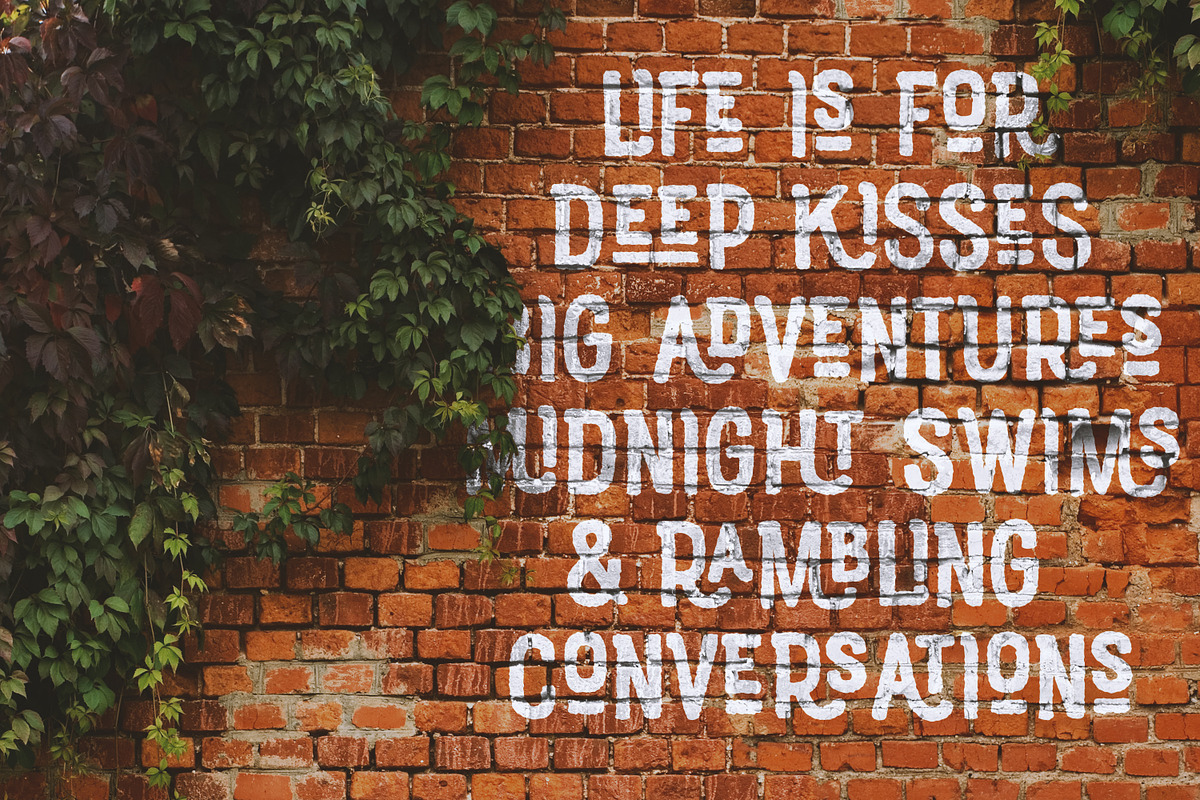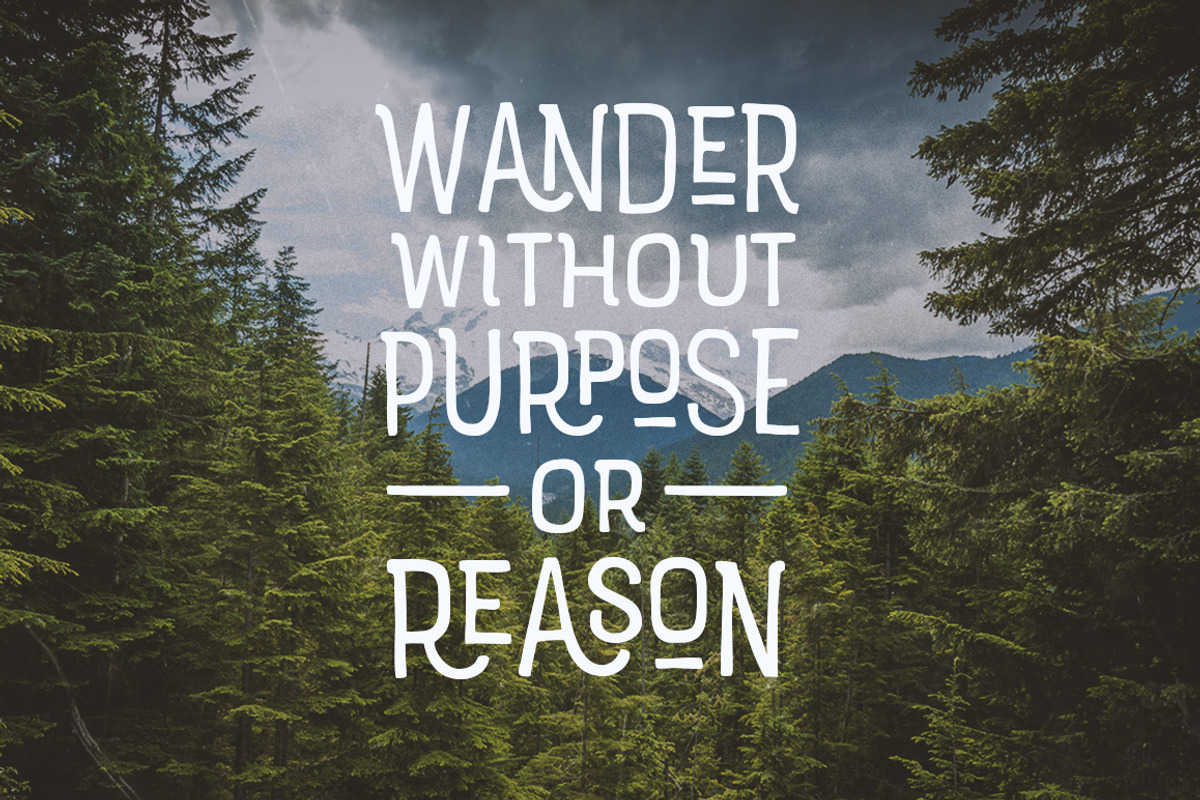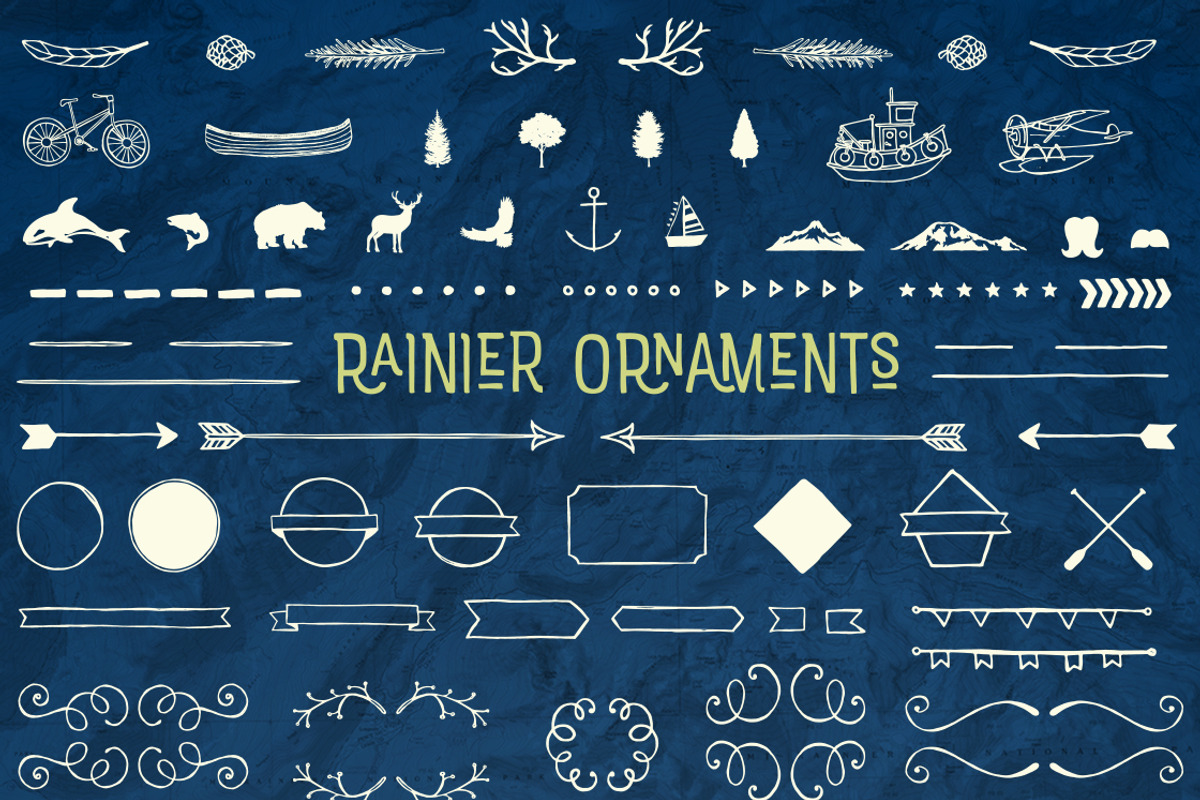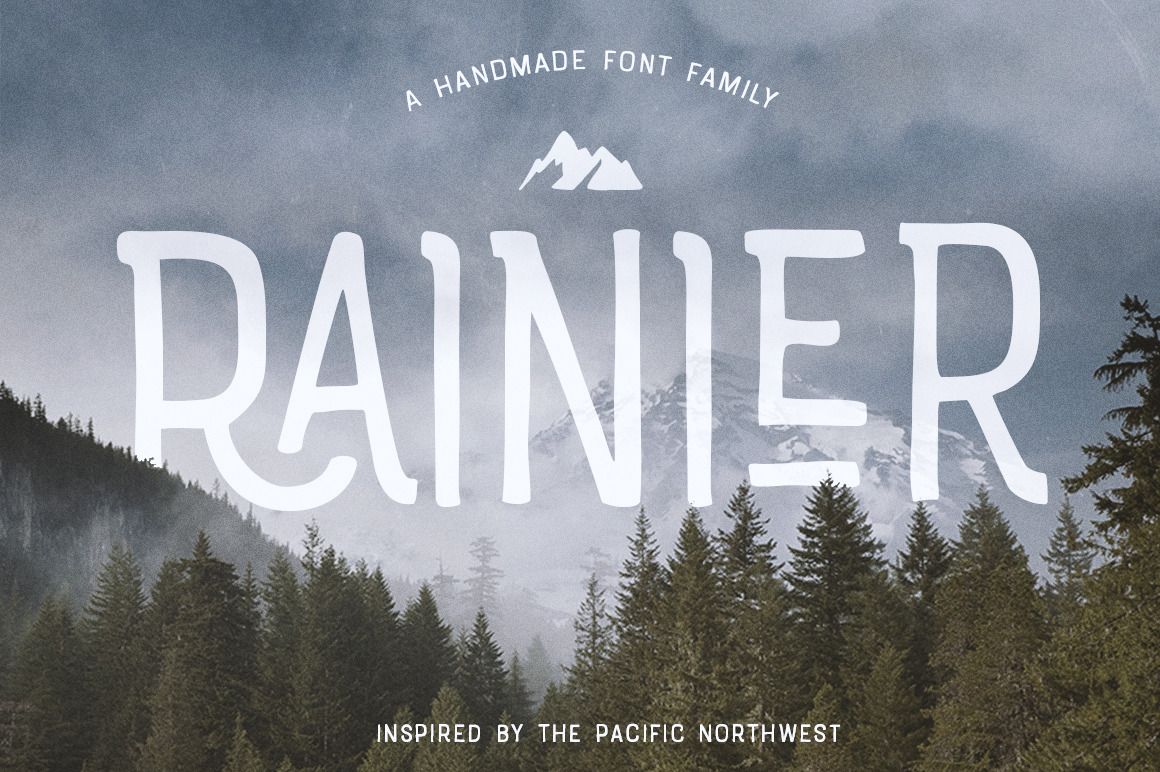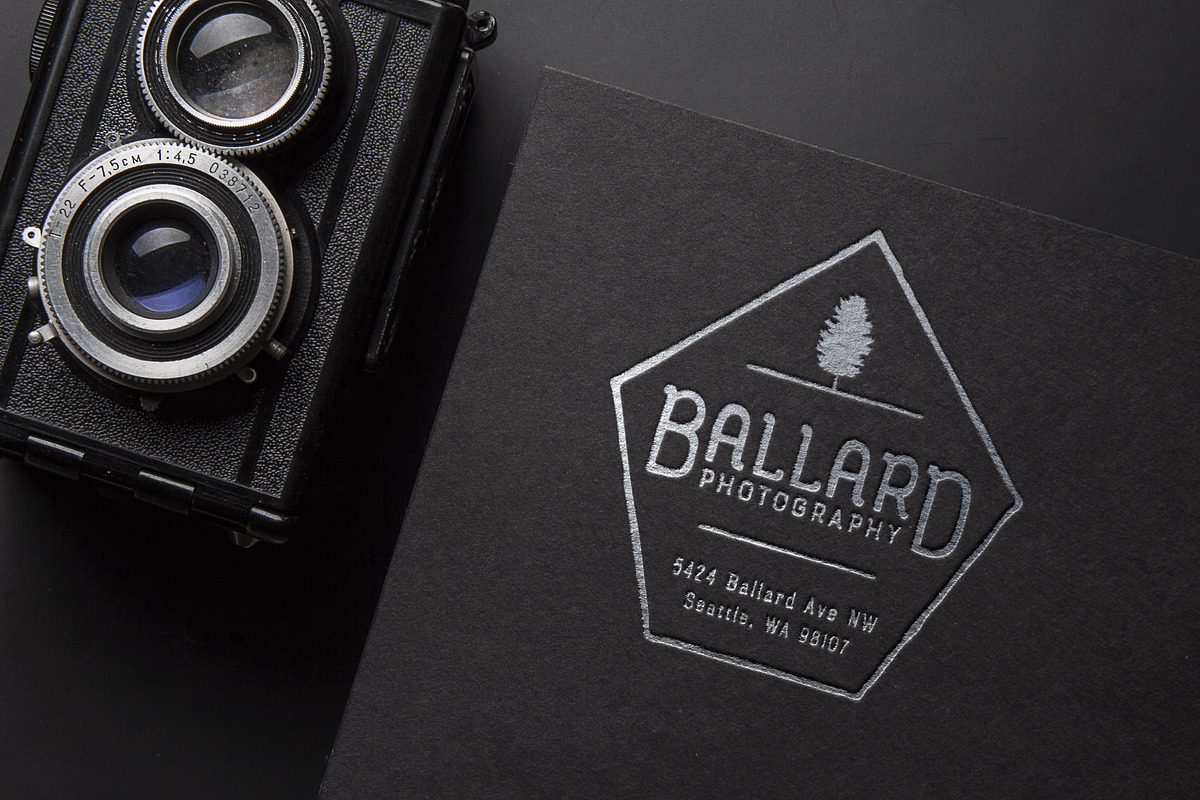
I was inspired to create the Rainier type family during my summer back home in the Pacific Northwest. The concept behind it may be simple - a hand crafter font family - but what it delivers is quite complex! Here is a breakdown of everything you get:
FONTS: 2 sub-families with unique styles in 4 weights, and one set of graphic Ornaments
- Rainier North 100 (light)
- Rainier North 300 (regular)
- Rainier North 500 (bold)
- Rainier North 700 (black)
- Rainier Ornaments
- Rainier West 100 (light)
- Rainier West 300 (regular)
- Rainier West 500 (bold)
- Rainier West 700 (black)
- Contextual Alternatives: because Rainier is 100% handmade, each letter has three subtle variations, this way it keeps that authentic hand-drawn look
- Swashes: a full alphabet with special descending swashes, as well as start and end swashes for capitals and small caps
- Titling Alternatives: a full character set just to help with readability! Meant for captions or smaller text, these letterforms are easy on the eye and a great compliment to the regular alphabet
- Stylistic Alternatives: for a little fun, this character set offers a unified cap height, no matter what case you are using (all caps, small caps or lowercase)
- Discretionary Ligatures: created only for capitals, this feature takes specific letter pairs and creates a unique ligature between them
ORNAMENTS: additionally, you get a set of awesomely rustic ornaments designed and drawn to go specifically with Rainier!
- Rustic Northwest Illustrations
- Banners & Flags
- Frames
- Flourishes
- Lines & Line Breaks
- Arrows